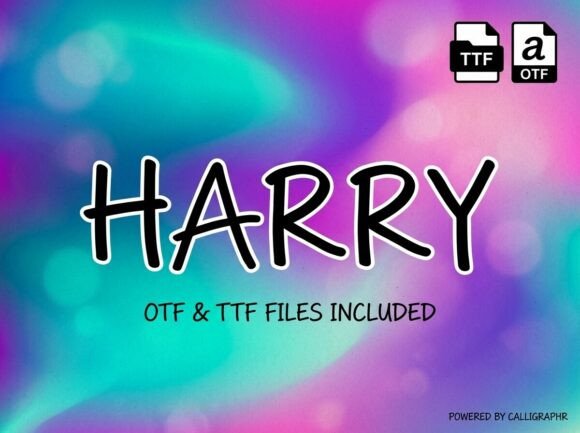
Introducing Harry Font: The Perfect Blend of Readability and Personality
Are you looking for a font that captures the authentic energy of a hand-written note? Look no further than Harry, a casual marker font designed for approachable storytelling. With its soft, rounded strokes and distinct “felt-tip” soul, Harry offers a perfect blend of readability and personality, making it the ideal choice for a variety of creative projects.
The Inspiration Behind Harry Font
Harry Font is inspired by the warmth and personality of hand-written notes. Its casual, marker-like strokes are reminiscent of a friendly conversation, making it perfect for projects that require a personal touch. Whether you’re creating independent lifestyle vlogs, classroom materials, or social media overlays, Harry Font is the perfect choice for adding a touch of warmth and approachability to your content.
Key Features of Harry Font
So, what sets Harry Font apart from other fonts? Here are a few key features that make it a standout:
- Soft, rounded strokes: Harry Font features soft, rounded strokes that give it a friendly, approachable feel.
- Distinct “felt-tip” soul: The font’s distinct “felt-tip” soul gives it a unique, hand-written feel that’s perfect for adding a personal touch to your content.
- Friendly weight: Harry Font has a friendly weight that’s easy to read, making it perfect for long-form content.
- Natural rhythm: The font’s natural rhythm makes it easy to read and understand, even at smaller sizes.
Use Cases for Harry Font
So, what can you use Harry Font for? The possibilities are endless! Here are a few ideas to get you started:
- Independent lifestyle vlogs: Add a personal touch to your vlogs with Harry Font’s friendly, approachable style.
- Creative classroom materials: Make learning fun with Harry Font’s playful, engaging style.
- Boutique organic food labels: Add a touch of warmth and personality to your food labels with Harry Font.
- Engaging social media overlays: Use Harry Font to add a personal touch to your social media overlays and make them stand out.
Why Choose Harry Font?
So, why choose Harry Font over other fonts? Here are a few reasons why Harry Font is a great choice:
- Readability: Harry Font is easy to read, even at smaller sizes, making it perfect for long-form content.
- Personality: The font’s friendly, approachable style adds a touch of personality to your content.
- Versatility: Harry Font can be used for a variety of projects, from vlogs and classroom materials to food labels and social media overlays.
In conclusion, Harry Font is a casual marker font that’s perfect for approachable storytelling. With its soft, rounded strokes and distinct “felt-tip” soul, Harry offers a perfect blend of readability and personality. Whether you’re a designer, crafter, or content creator, Harry Font is a great choice for adding a touch of warmth and personality to your projects. So why not give it a try and see the difference it can make?